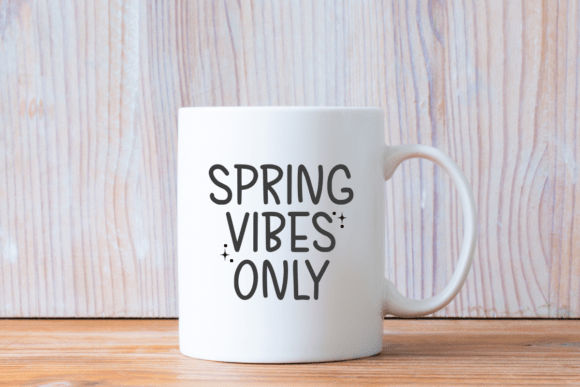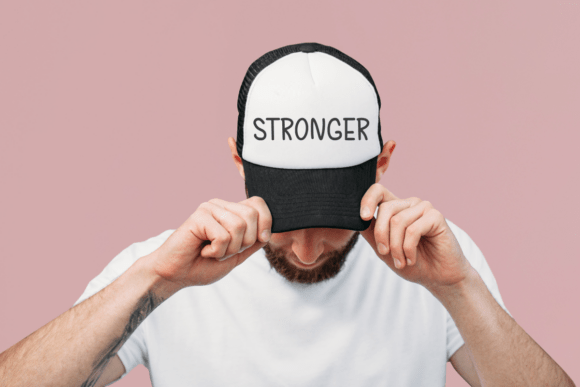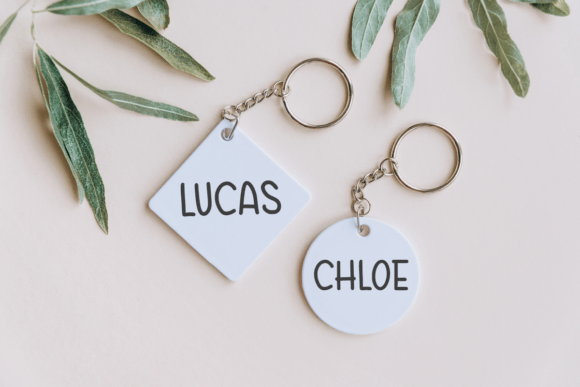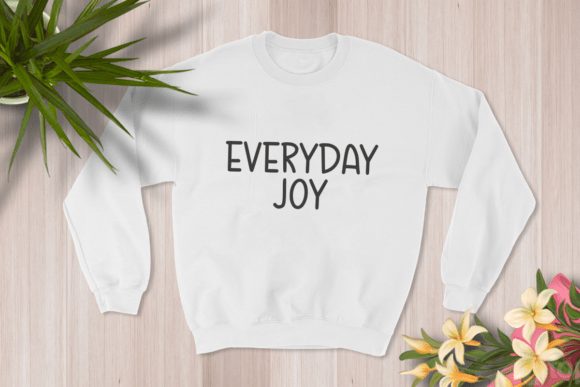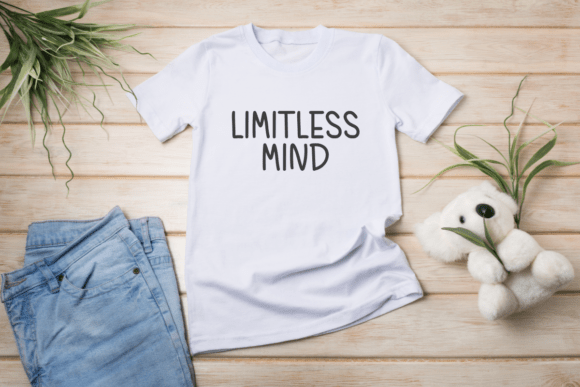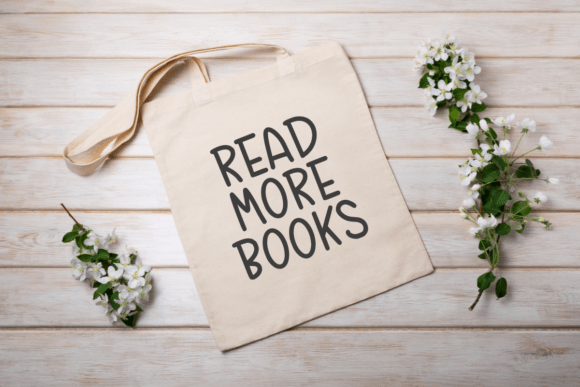
Celebrate the Warmth of Connection with the Family Bond Font
In the world of typography, fonts are more than just a means to convey words; they’re a way to evoke emotions, create moods, and build connections. For those looking to infuse their projects with a sense of warmth, comfort, and playfulness, the Family Bond font is an exceptional choice. This delightful handwriting typeface is designed to feel like a friendly note from a loved one, making it perfect for family-oriented brands, community-focused projects, and anyone looking to create a sense of home in their visual storytelling.
The Characteristics of Family Bond Font
The Family Bond font is characterized by its bold, slightly irregular strokes and a tall, condensed structure. This unique combination gives it a distinctive look that’s both eye-catching and endearing. The bold strokes ensure that the text stands out, while the slightly irregular edges add a touch of handcrafted warmth, reminiscent of handwritten notes. The tall, condensed structure allows for easy stacking and pairing with other fonts, making it versatile for various design applications.
Applications of the Family Bond Font
Given its friendly and approachable vibe, the Family Bond font is incredibly versatile and can be used in a myriad of projects. Here are some of the most effective applications:
- Merchandise and Apparel Design: The font’s “sticker-style” outline compatibility makes it pop on t-shirts, tote bags, and other merchandise. Its bold and clear letterforms ensure that designs stand out, making it a fantastic choice for brands looking to create eye-catching apparel.
- School Flyers and Educational Materials: For school flyers, educational apps, and games, the Family Bond font offers a playful yet reliable feel. It’s perfect for creating engaging and child-friendly content that resonates with both kids and parents.
- Family Photo Albums and Scrapbooking: Adding captions to family photo albums or scrapbooking projects with the Family Bond font can add a personal and intimate touch. Its handwriting-like quality brings warmth and personality to your storytelling.
Design Tips for Using Family Bond Font
To make the most of the Family Bond font, consider the following design tips:
- Pair with Bright, Primary Color Palettes: The font works brilliantly with bright, primary colors. These color schemes enhance its playful and friendly vibe, making it perfect for children’s projects, family-oriented brands, and any design that aims to evoke happiness and warmth.
- Combine with Hand-Drawn Doodles: For a truly unique and engaging design, combine the Family Bond font with hand-drawn doodles or illustrations. This combination adds a layer of whimsy and personality to your project.
- Consider Readability: While the Family Bond font is designed to be readable, ensuring that your text is easily readable on both digital screens and printed materials is crucial. Its sturdy weight and clear letterforms make it highly legible, but always consider contrast and background when finalizing your design.
Why Choose Family Bond Font?
The Family Bond font stands out for several reasons:
- Evokes Comfort and Reliability: Its design inherently feels comforting and reliable, making it perfect for projects where trust and warmth are key.
- Playful yet Legible: It strikes a beautiful balance between playfulness and readability, making it suitable for a wide range of applications, from children’s educational content to family-oriented branding.
- Versatile: Whether you’re working on digital projects, print materials, or merchandise, the Family Bond font adapts beautifully, ensuring your message is conveyed with warmth and clarity.
In conclusion, the Family Bond font is more than just a typeface; it’s a way to infuse your projects with a sense of warmth, comfort, and playfulness. Its unique characteristics, versatility, and emotional resonance make it an excellent choice for designers and crafters looking to create a sense of home in their visual storytelling. Whether you’re designing for family-oriented brands, creating educational content, or simply looking for a font that feels like a warm hug, the Family Bond font is sure to exceed your expectations.